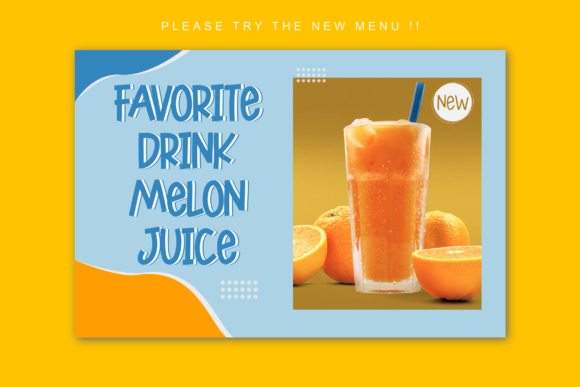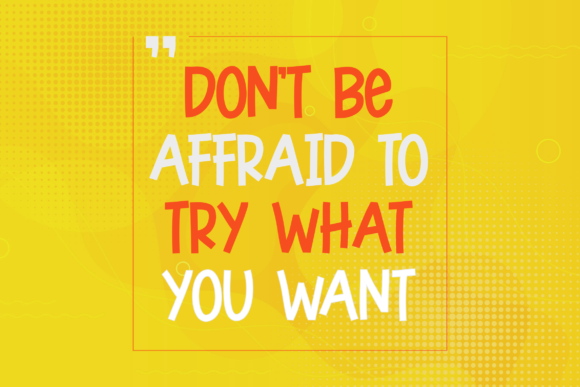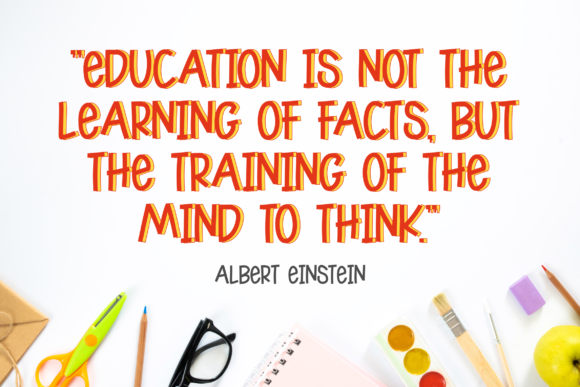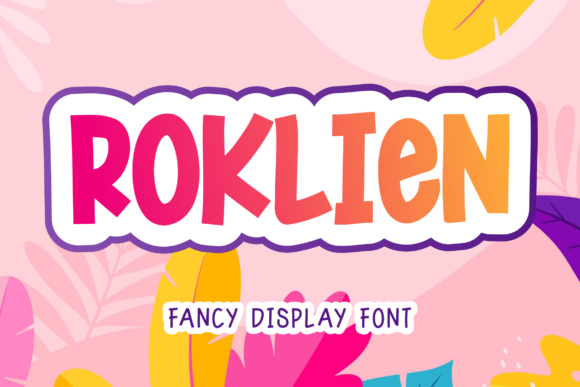
Introduction to Roklien Font
Roklien is a childish, easy-to-read display font that conveys impeccable friendliness.
Why Choose Roklien Font?
Roklien Font offers exceptional quality and versatility, making it a valuable addition to your design toolkit. Whether you’re creating for personal projects or commercial use, Roklien Font delivers professional results.